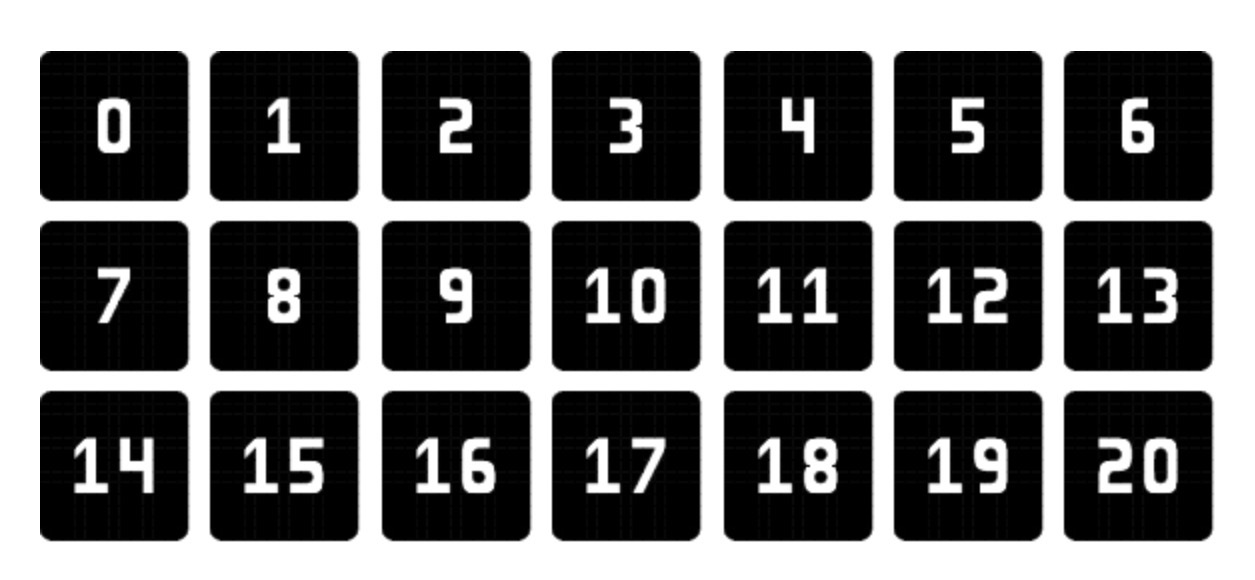
• For a hypothetical 20-sided die with square faces. Available for both English-UK and English-US keyboard layouts! Also, the number zero is codepointed at the hyphen-minus.
Here are all the sides.